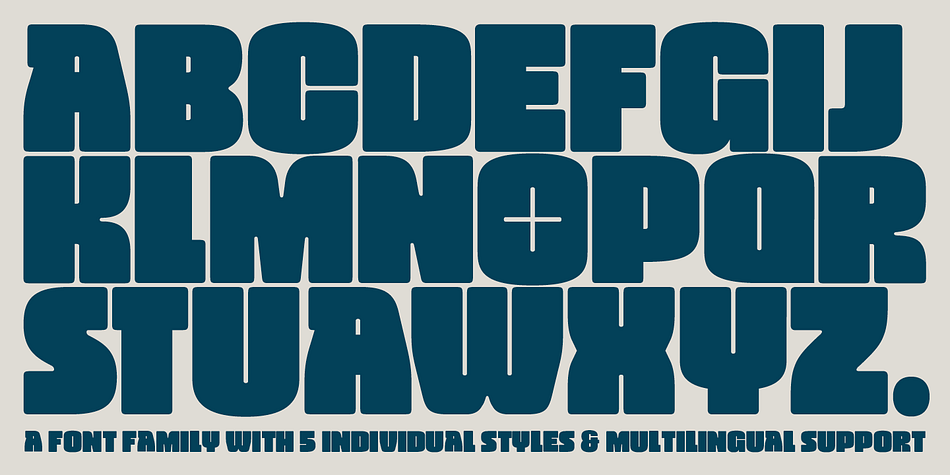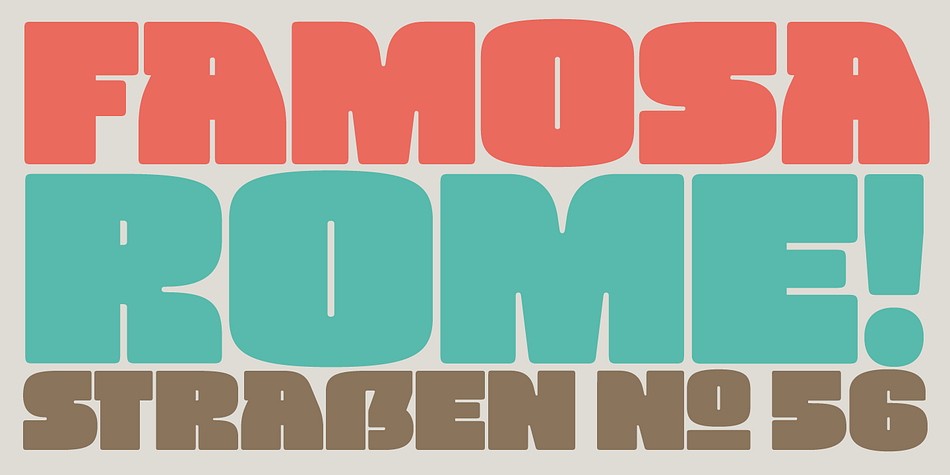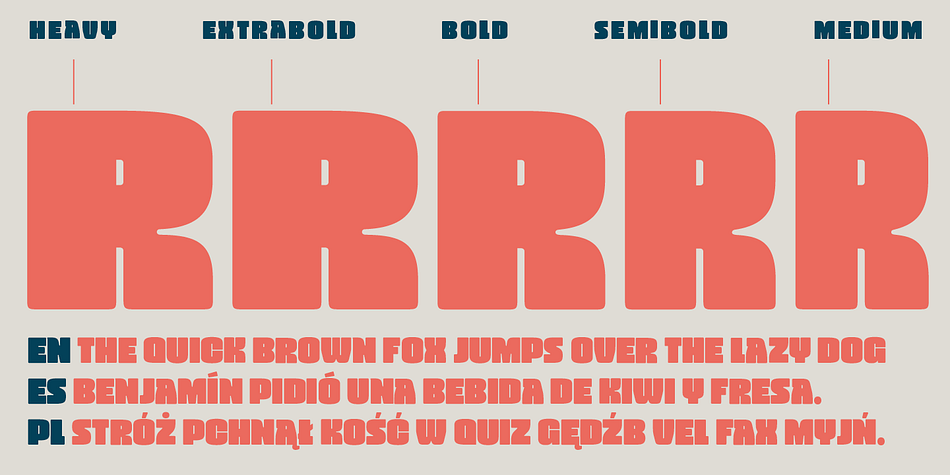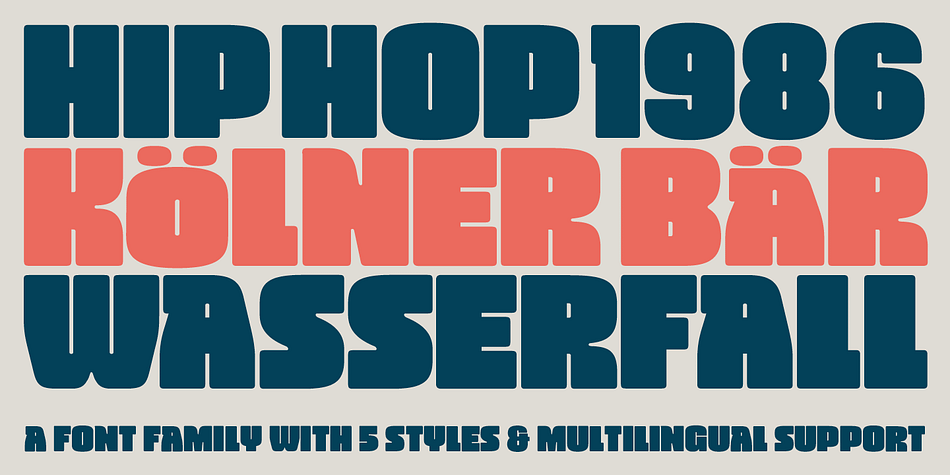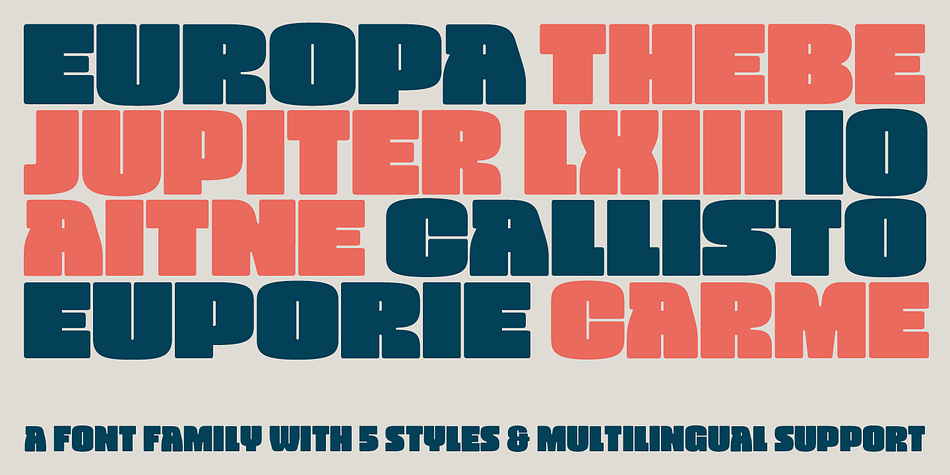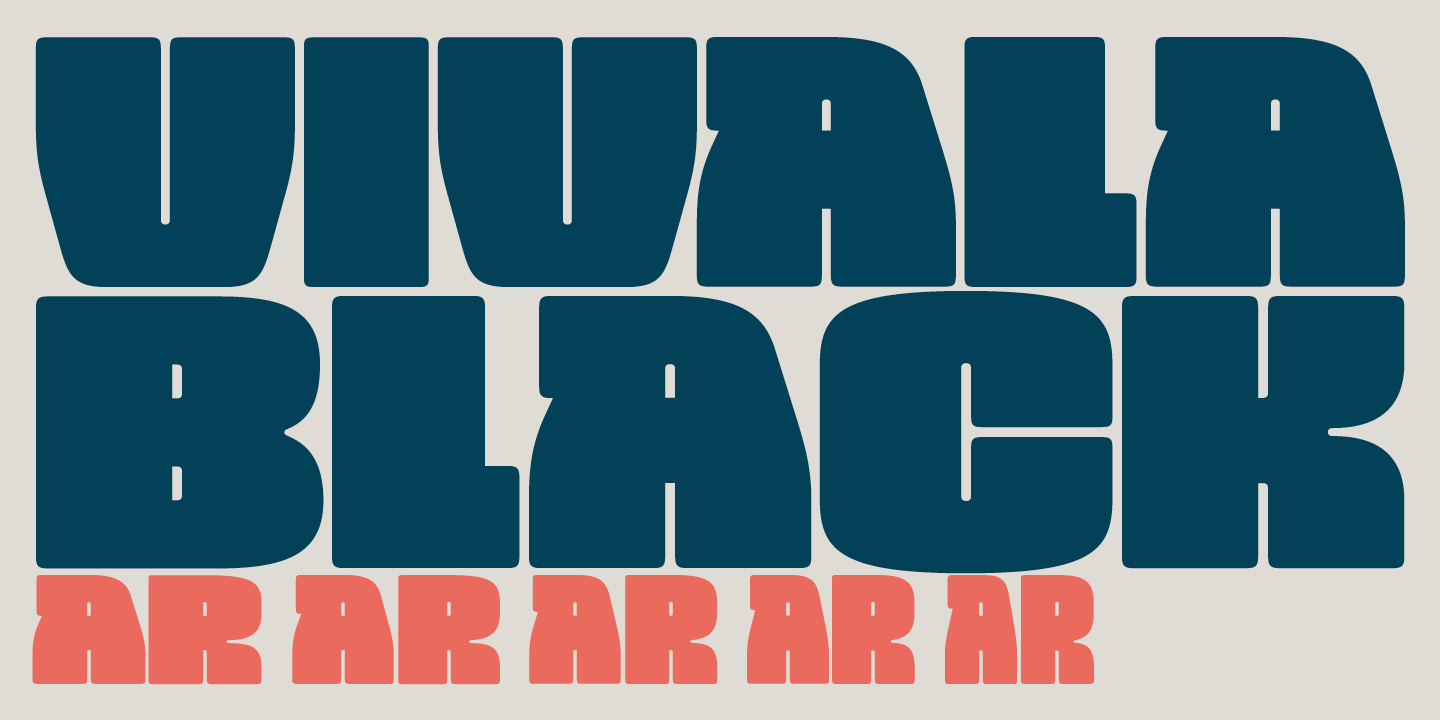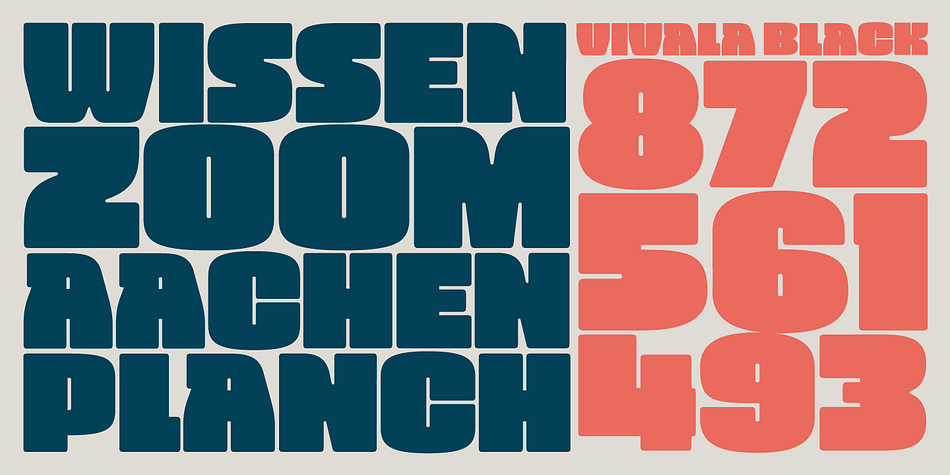
Designed by Johannes Hoffmann, Vivala Black is a display font family. This typeface has four styles and was published by Johannes Hoffmann.
The idea was to create an unicase typeface with a high black ratio that supports a compact typographic style. The four widths of Vivala Black share similar metrics, so they can be easily interchanged in a body of the text. OpenType features are ligatures, fractions, ordinals, numerators, denominators and stylistic alternates. Fields of application are posters, magazines, packaging design, books up to corporate design.